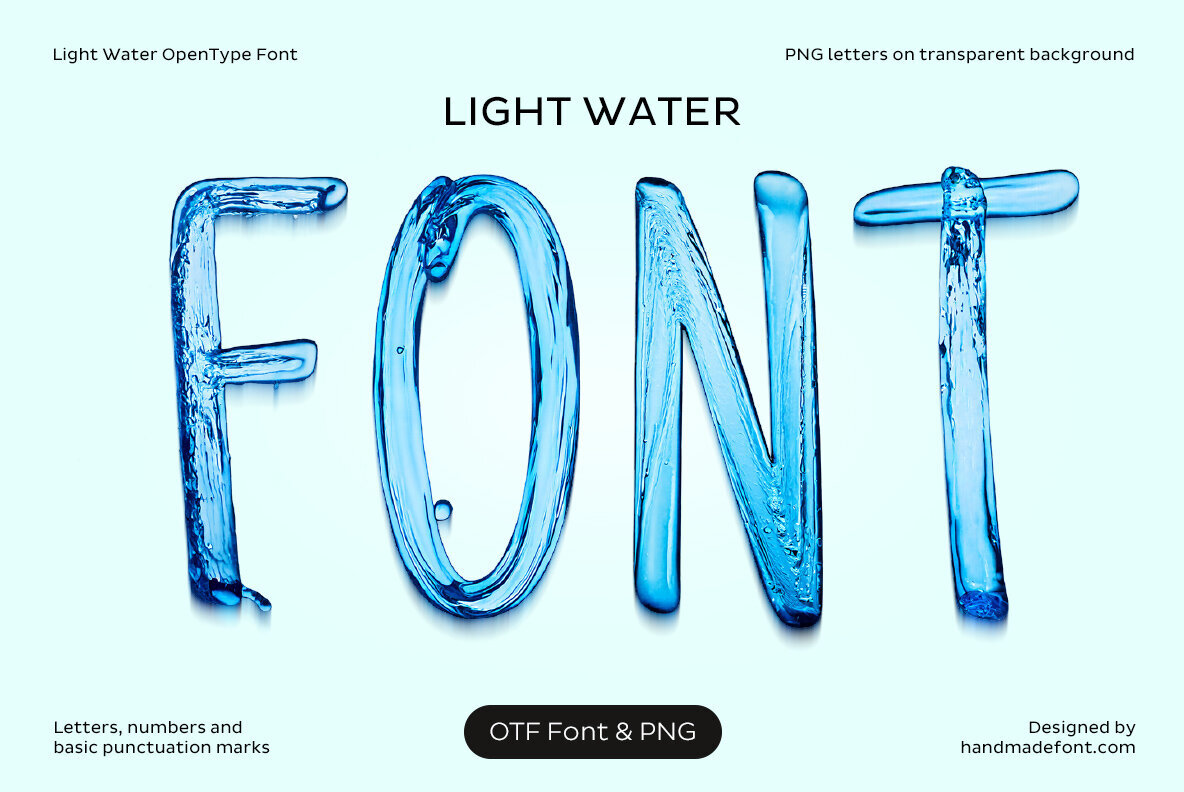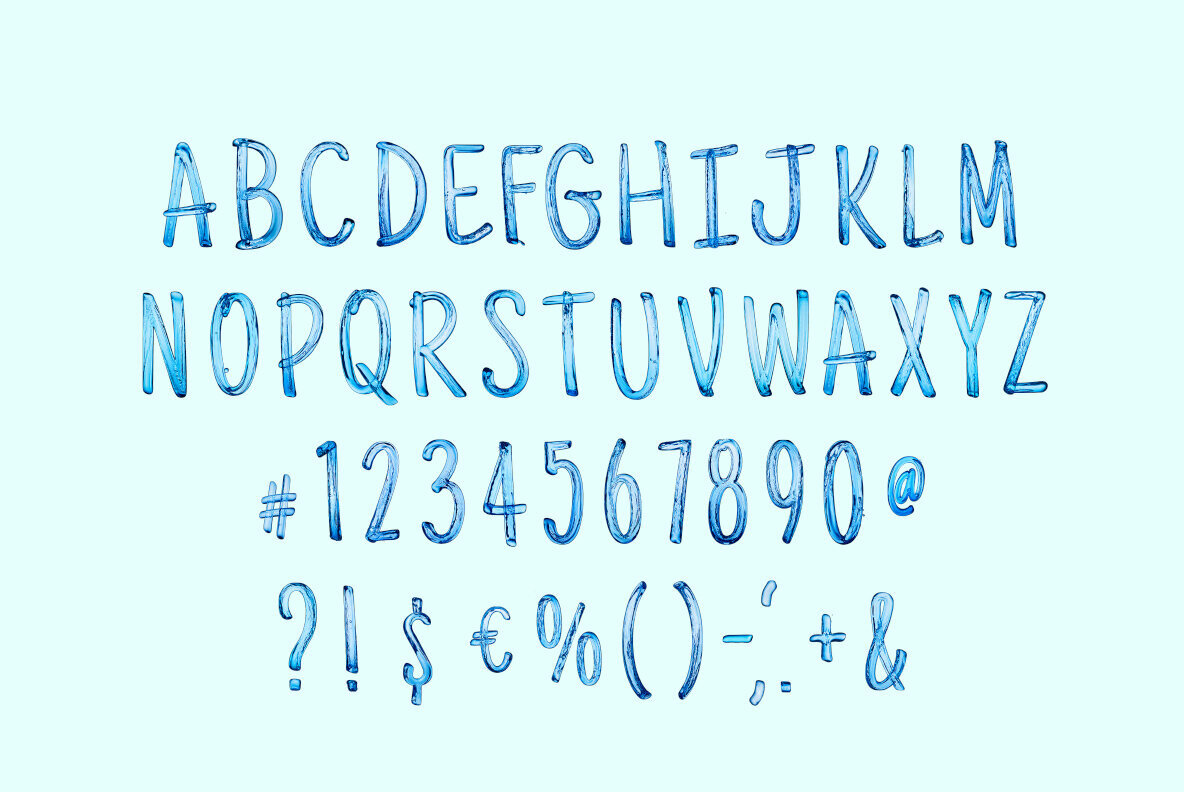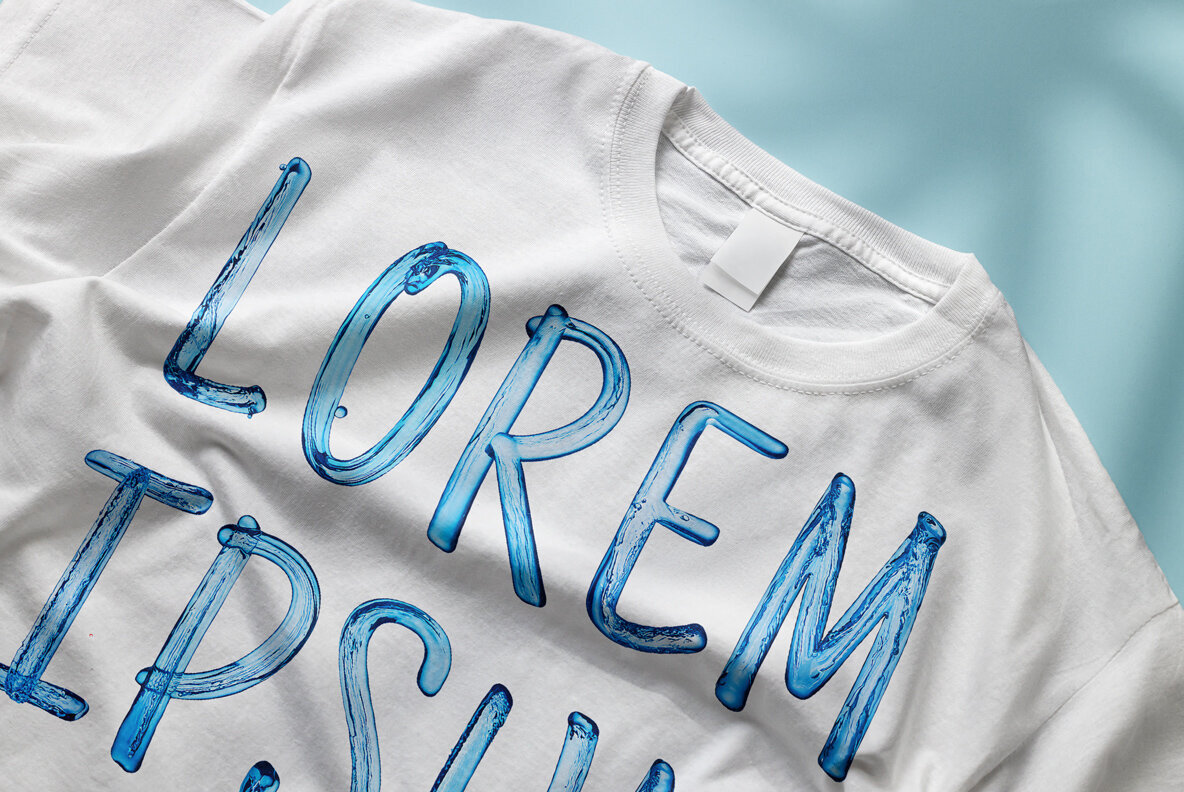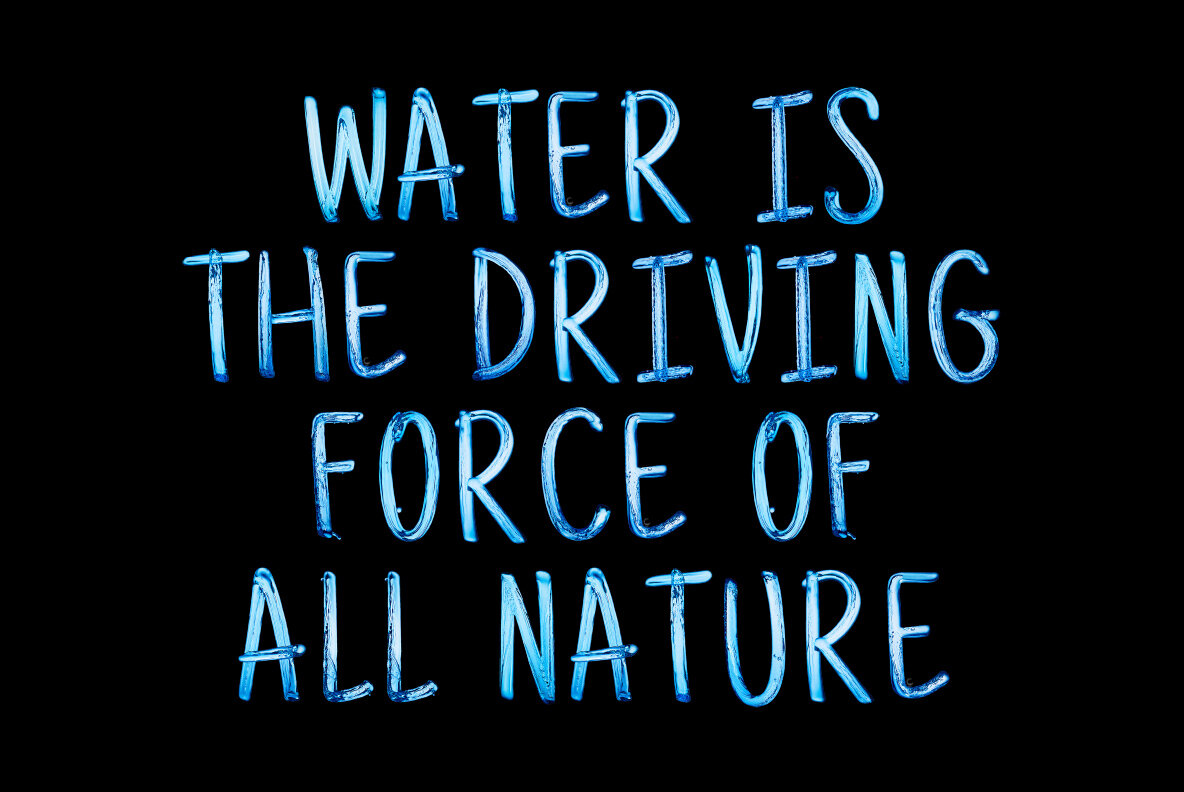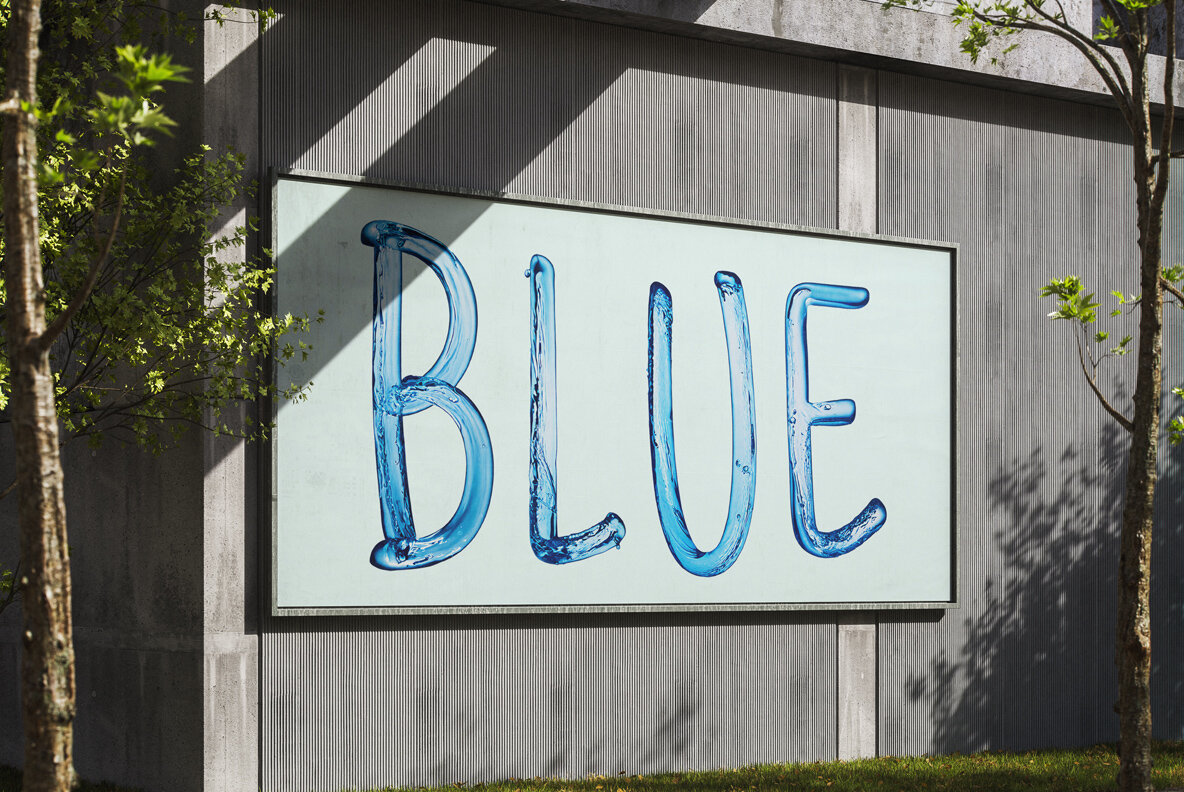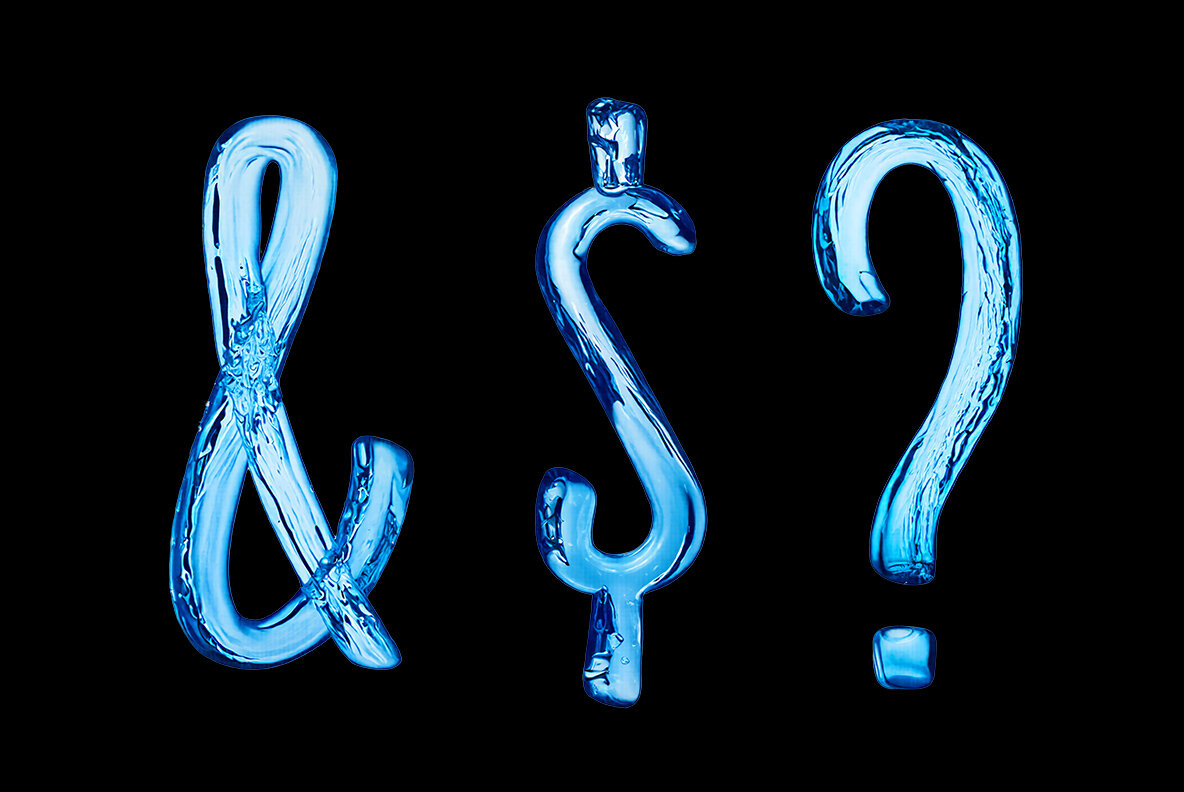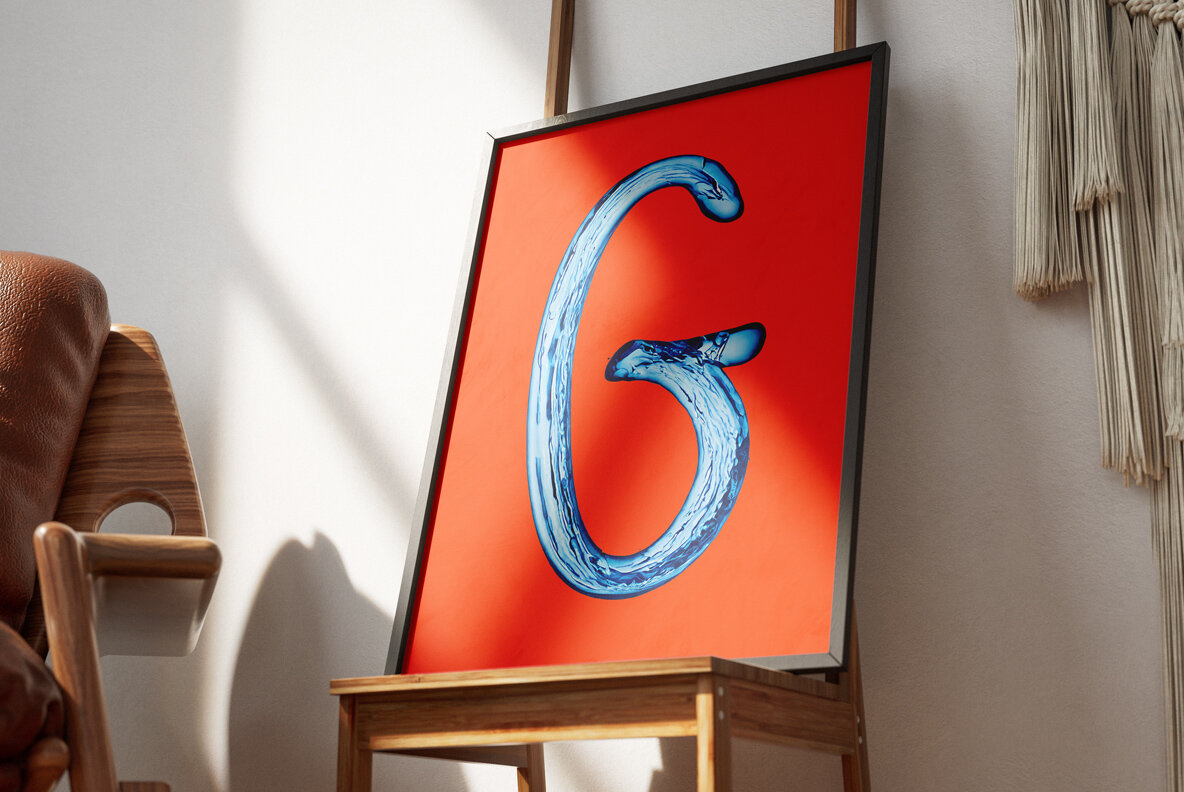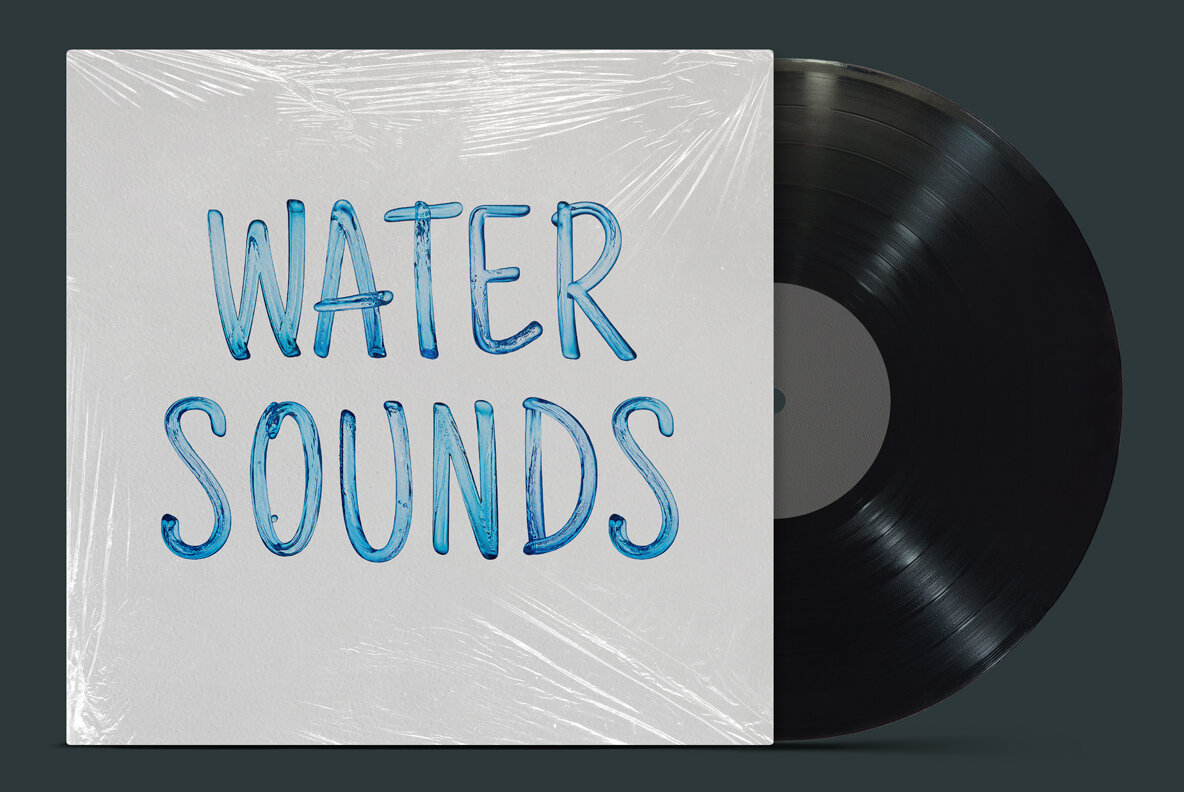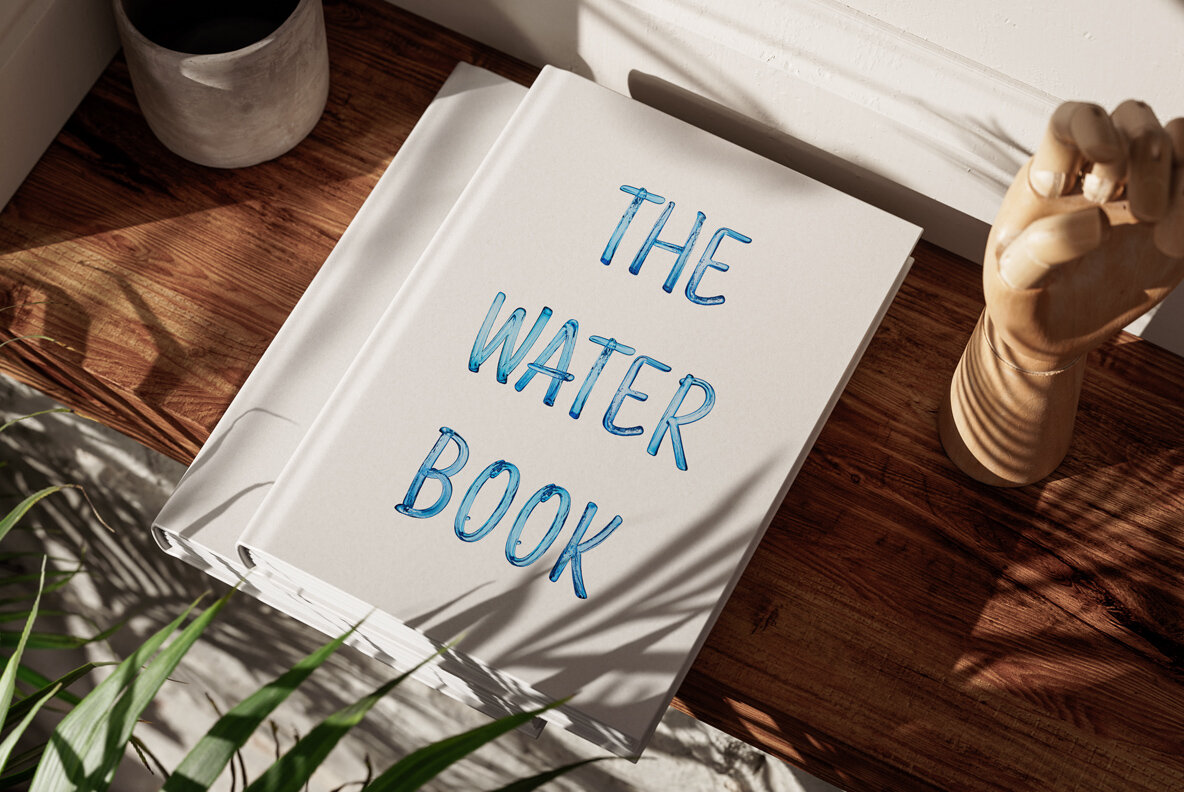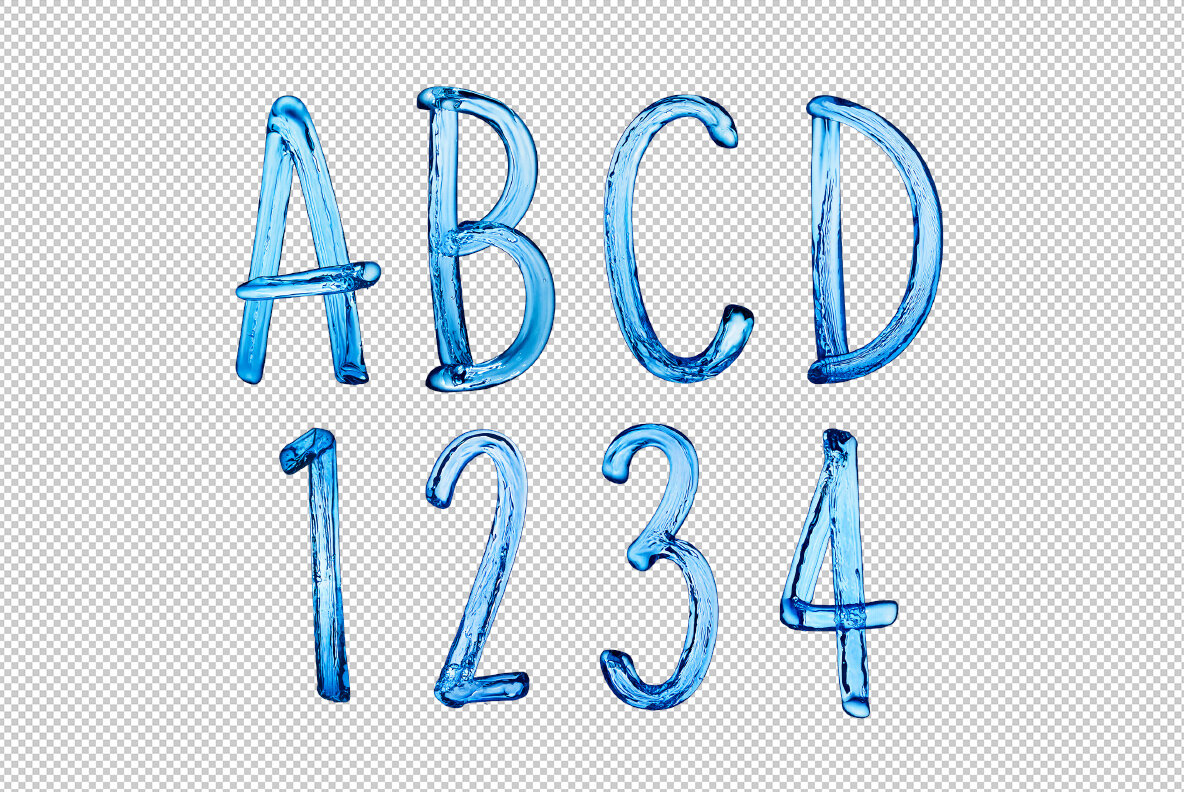
Experience the serene elegance of typography with Light Water Font. Crafted entirely from a fluid, translucent blue, each letter embodies motion and purity. This font feels refreshing and futuristic, creating a slightly magical atmosphere—as though water itself learned graphic design. Ideal for eco-friendly brands, wellness initiatives, or any project seeking a fresh, calm, and clean aesthetic. Light Water Font flows rather than shouts, hydrating your message with understated sophistication. Seamlessly integrate this distinctive font across your software—from Photoshop and Illustrator to PowerPoint and Word. However, note that full punctuation and extended language support are provided as individual image files within the PNG set.Light Water SVG Font